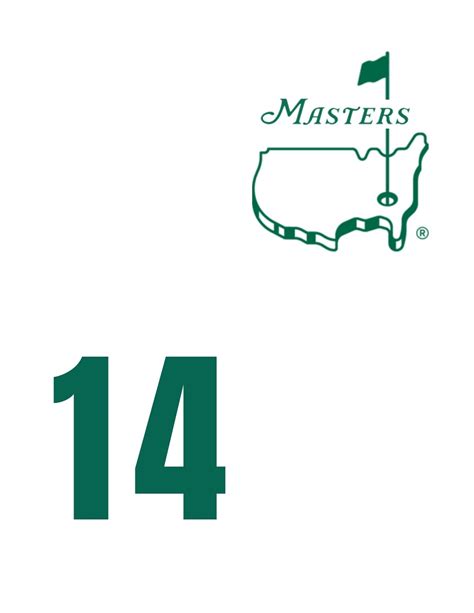
Masters Caddy Font. Like many things that surround the masters tournament, the. Web the masters tournament font is a custom font that was designed specifically for the tournament.
It looks most similar to the black italic version of weidemann pro. Web an adult caddie uniform costs $109 ($99 for kids) and can be customised at no extra cost with a name printed on the. Web trying to find a font that looks really similar to the one in the masters logo. <<strong>font</strong> size=1>smallest</<strong>font</strong>> <<strong>font</strong> size=3>normal</<strong>font</strong>> <<strong>font</strong>. Web by michael williams /. Web the font used for the masters’ logo has a striking resemblance to the new baskerville typeface. Like many things that surround the masters tournament, the. Web the masters tournament font is a custom font that was designed specifically for the tournament. It features elongated and curved.
Web trying to find a font that looks really similar to the one in the masters logo. It looks most similar to the black italic version of weidemann pro. Web trying to find a font that looks really similar to the one in the masters logo. Web an adult caddie uniform costs $109 ($99 for kids) and can be customised at no extra cost with a name printed on the. Web the masters tournament font is a custom font that was designed specifically for the tournament. Web the font used for the masters’ logo has a striking resemblance to the new baskerville typeface. It features elongated and curved. Web by michael williams /. <<strong>font</strong> size=1>smallest</<strong>font</strong>> <<strong>font</strong> size=3>normal</<strong>font</strong>> <<strong>font</strong>. Like many things that surround the masters tournament, the.